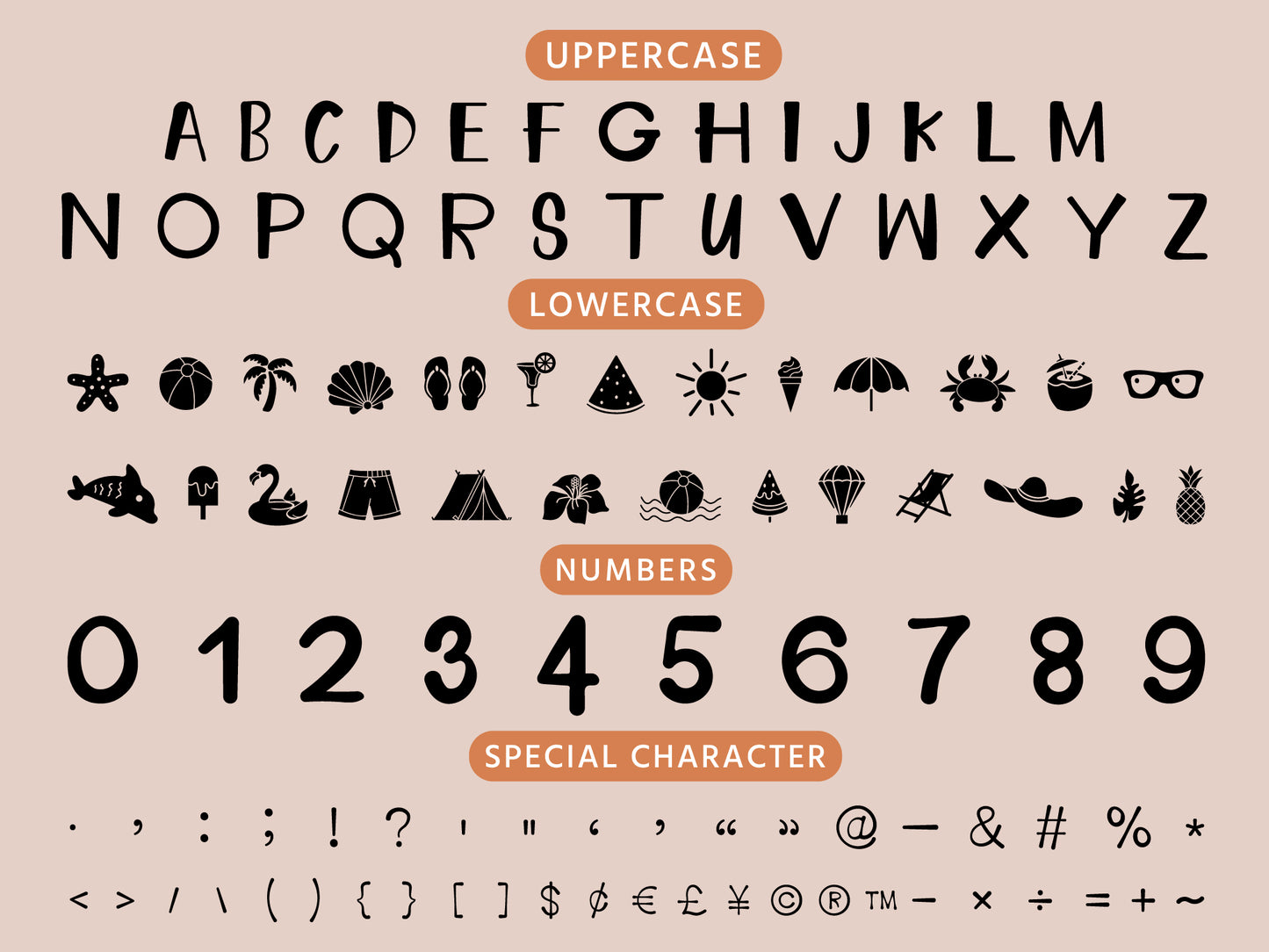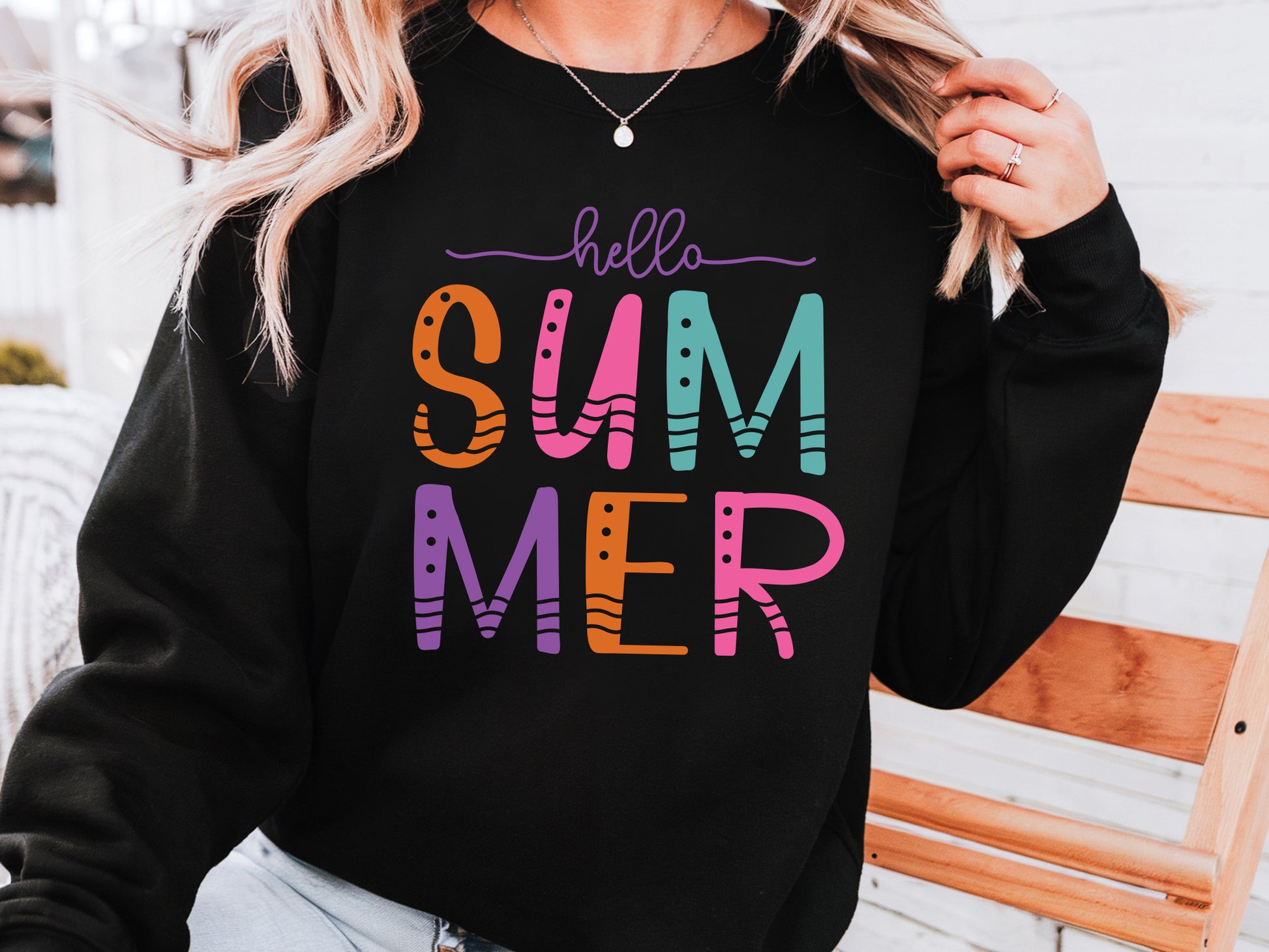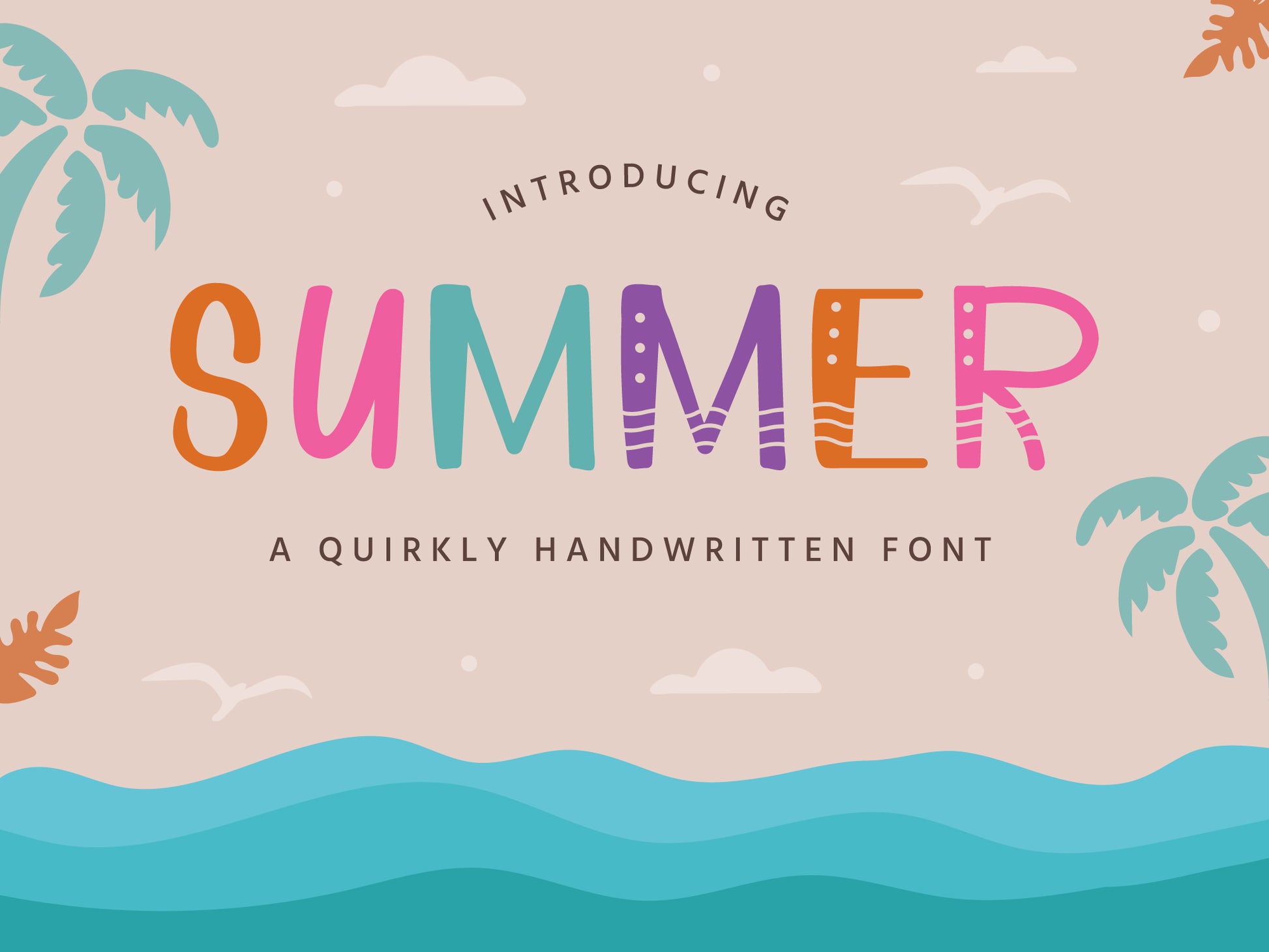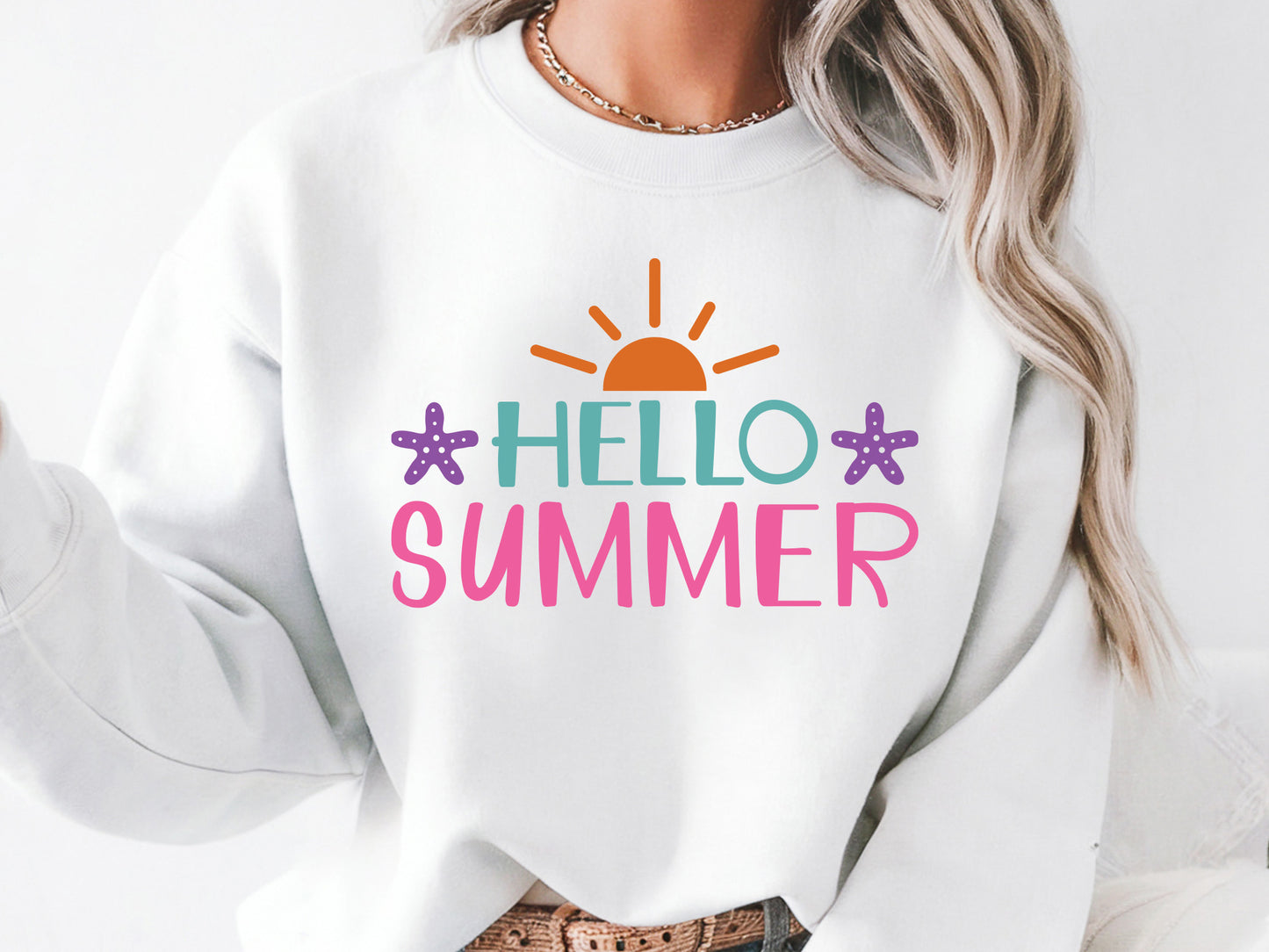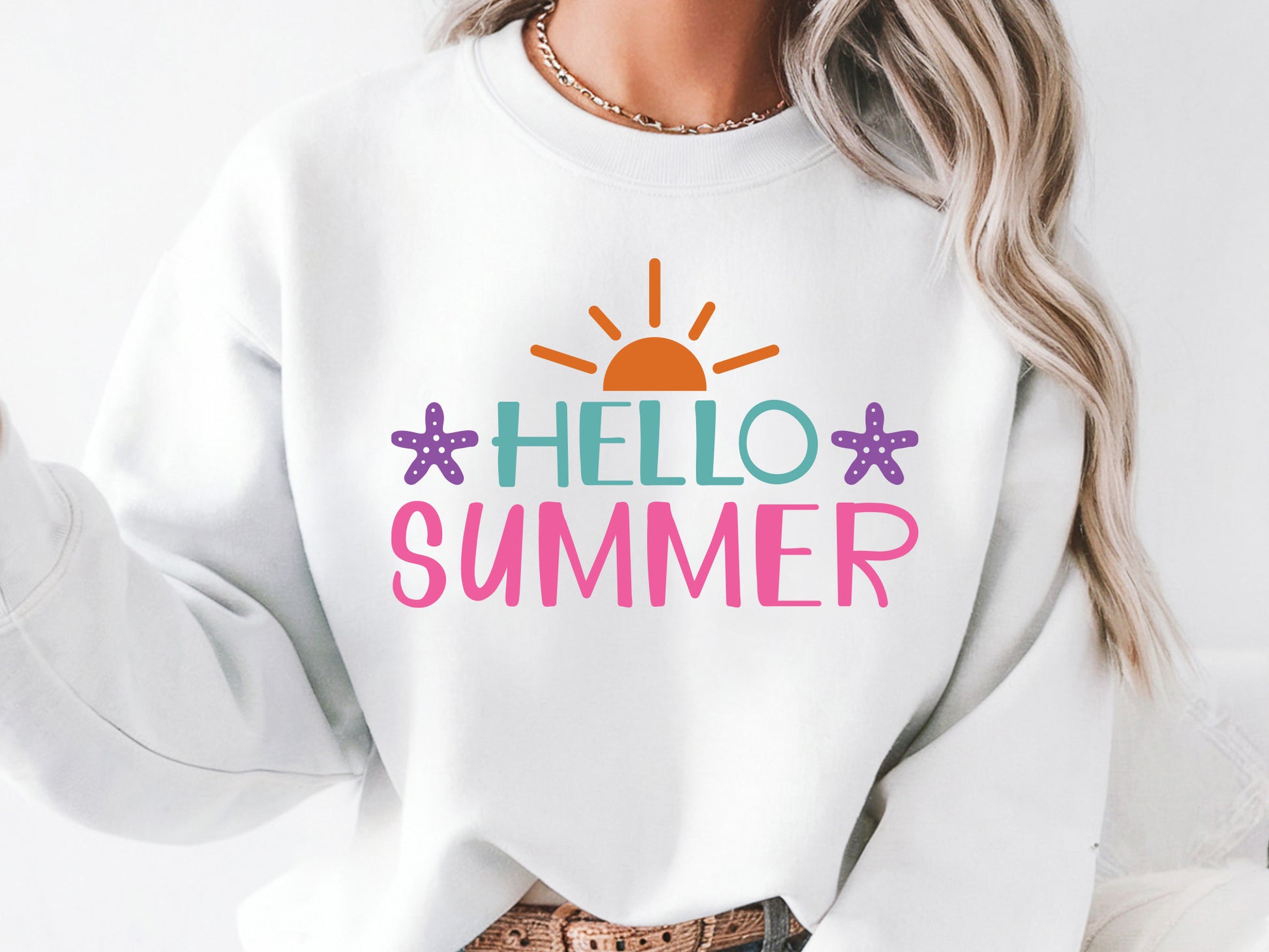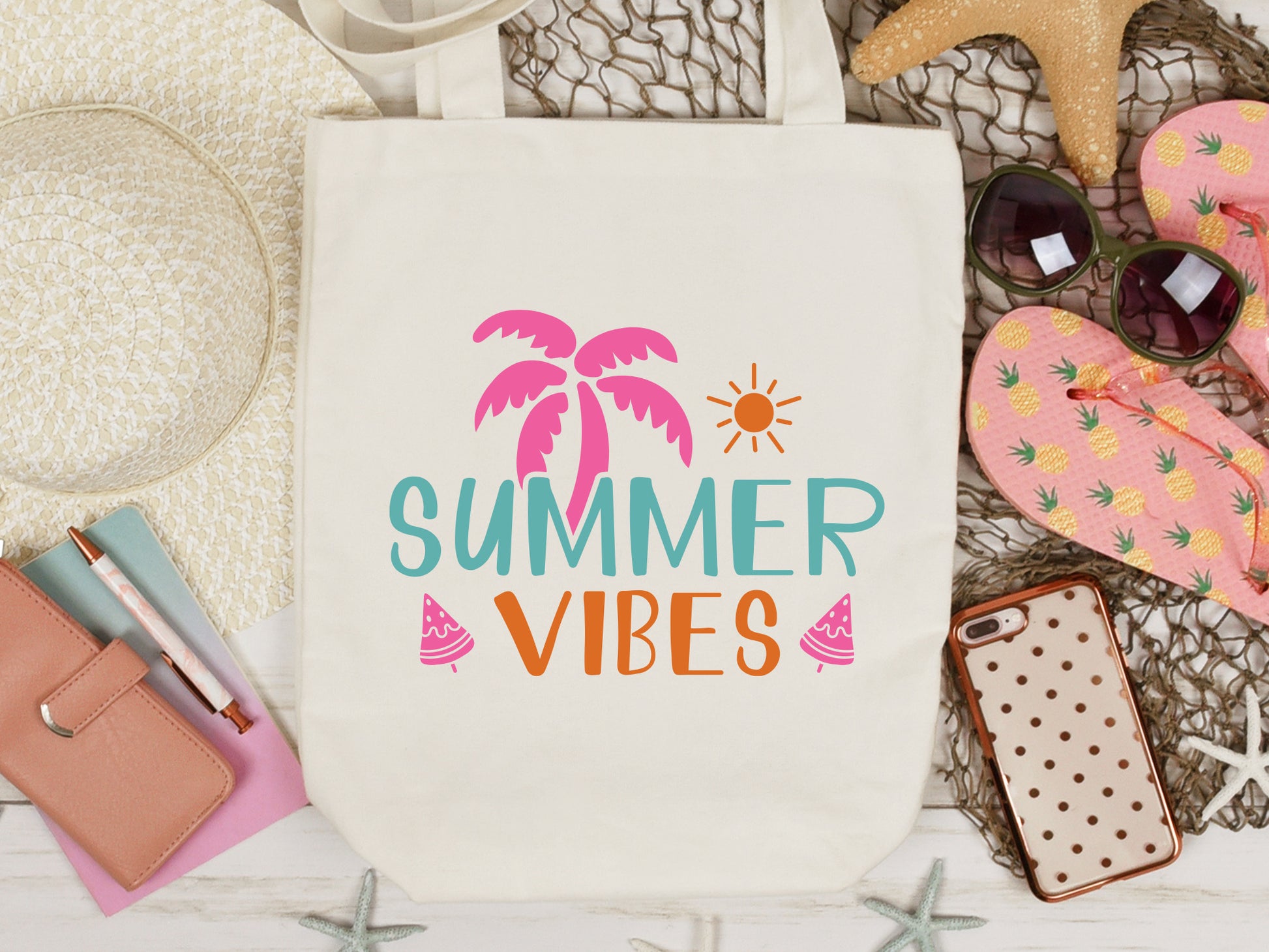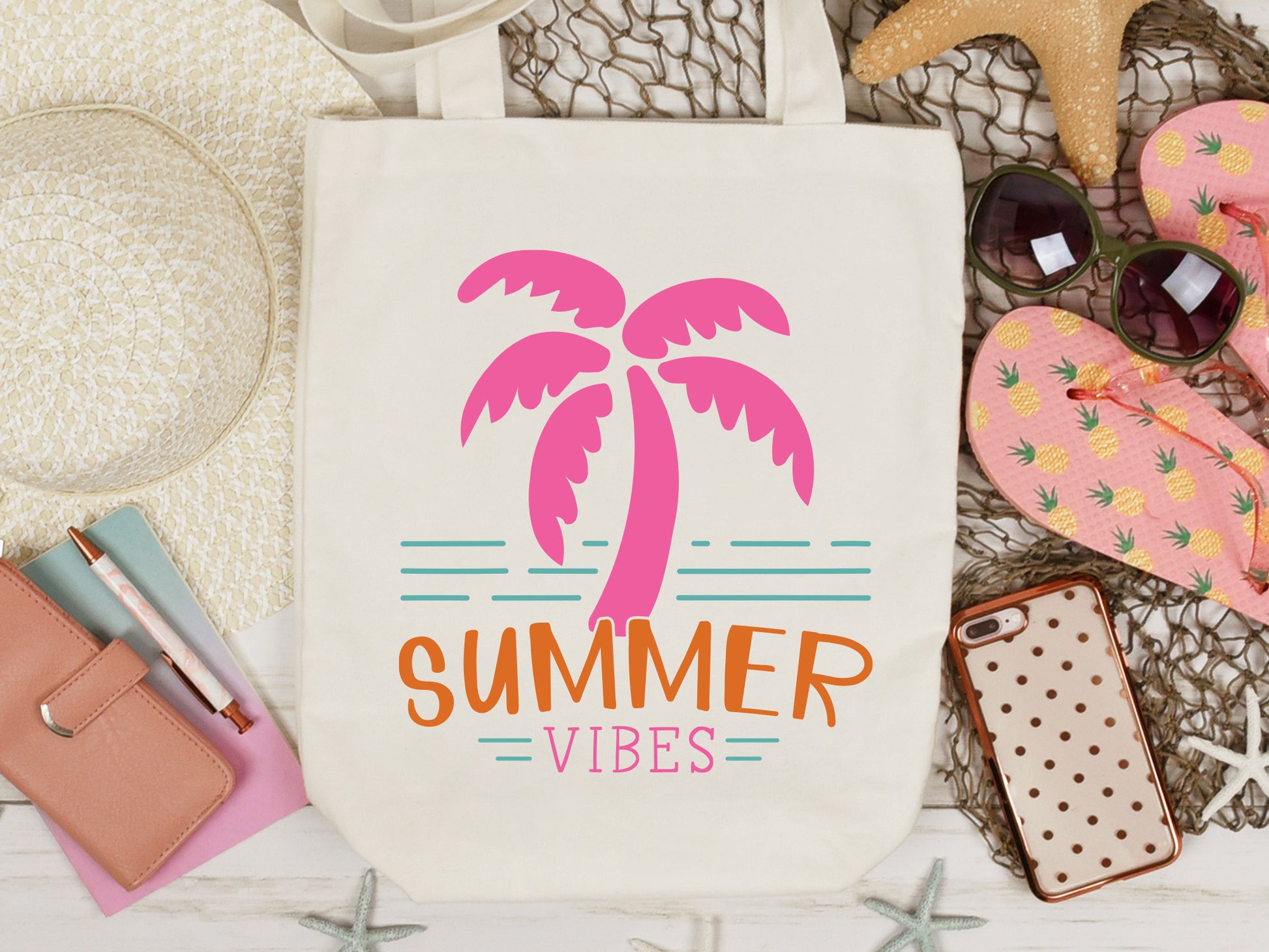
Summer - A Quirky Handwritten Font
Introducing Summer - a quirky and playful handwritten font! This charming typeface brings a sprinkle of whimsy and character to your designs, making it just right for all your summer-themed projects, from greeting cards to t-shirts, invitations, and beyond. With its distinctive handwritten flair, the Summer Font effortlessly combines fun and elegance, giving your text a laid-back and cheerful vibe. It's perfect for both personal and commercial use, and you can grab it in OTF and TTF formats that can be used on Cricut, Silhouette, Canva, Photoshop, Illustrator, and more. Whether you're making beach party invites, adorable summer quotes, or stylish decor items, the Quirky Handwritten Font will ensure your projects shine with its vibrant, carefree charm. Download it now for free!